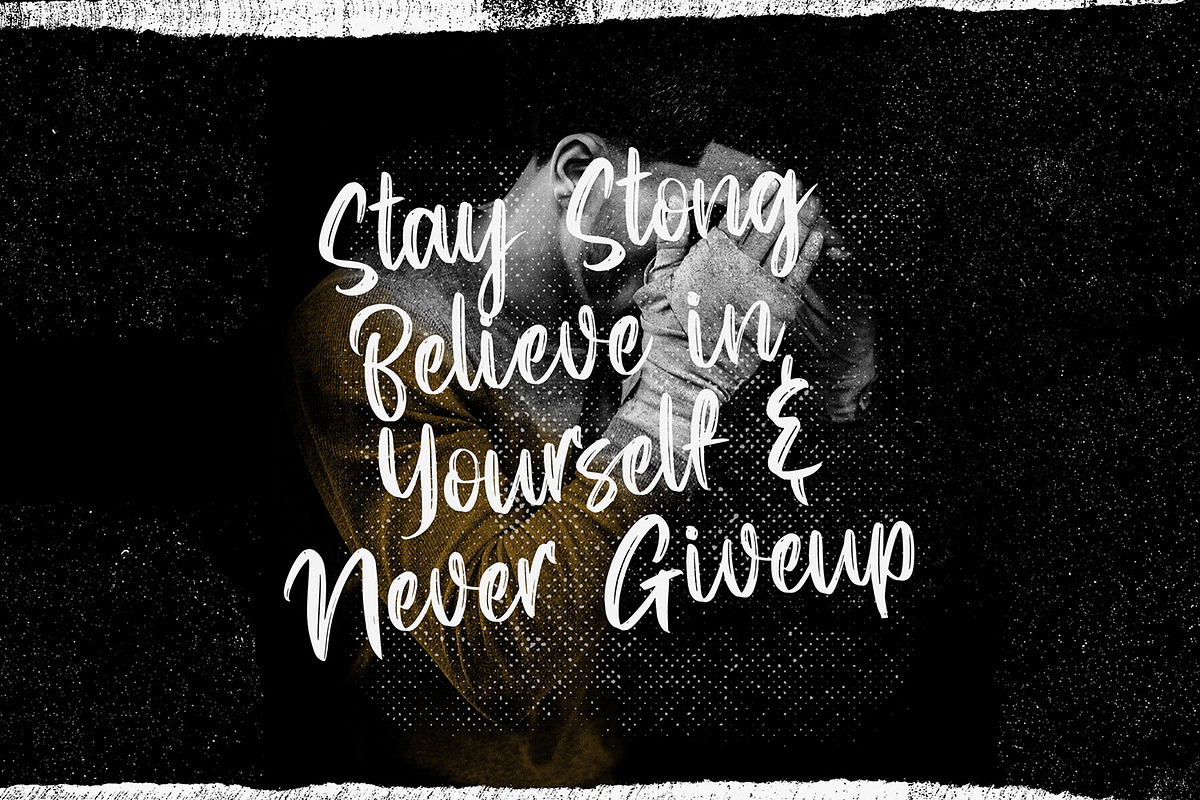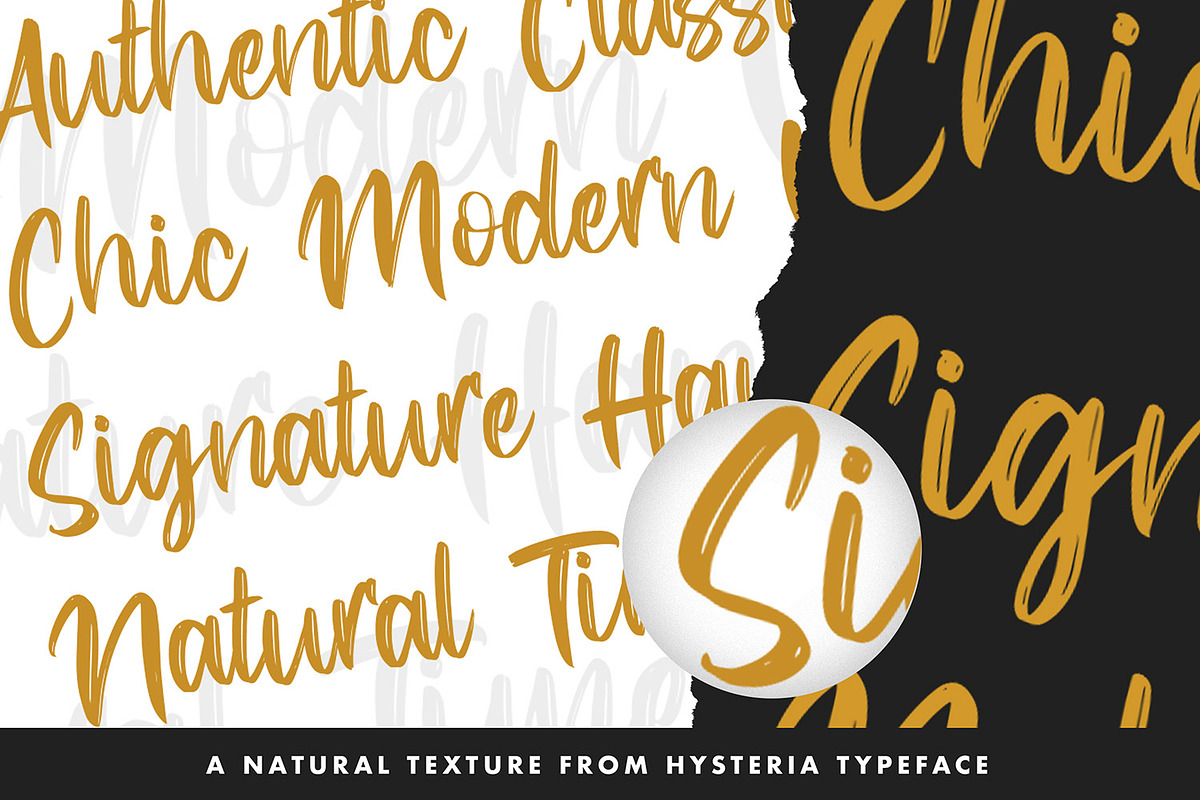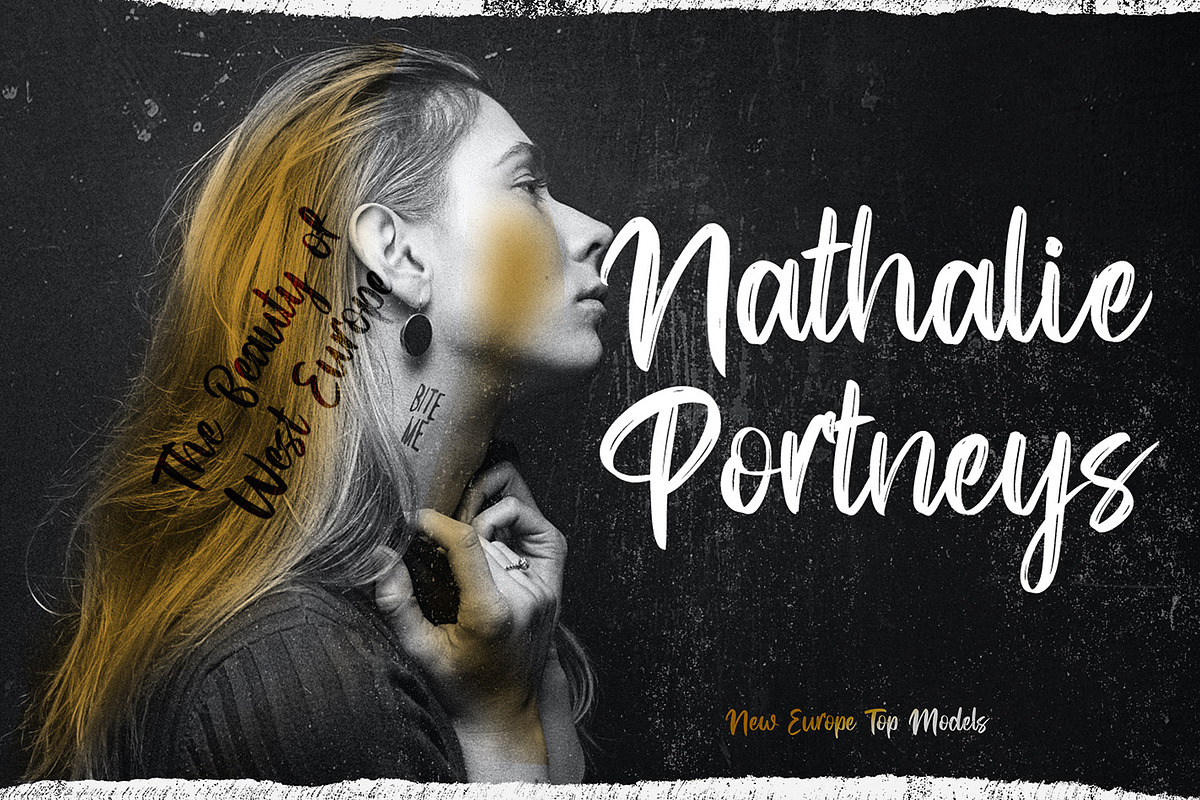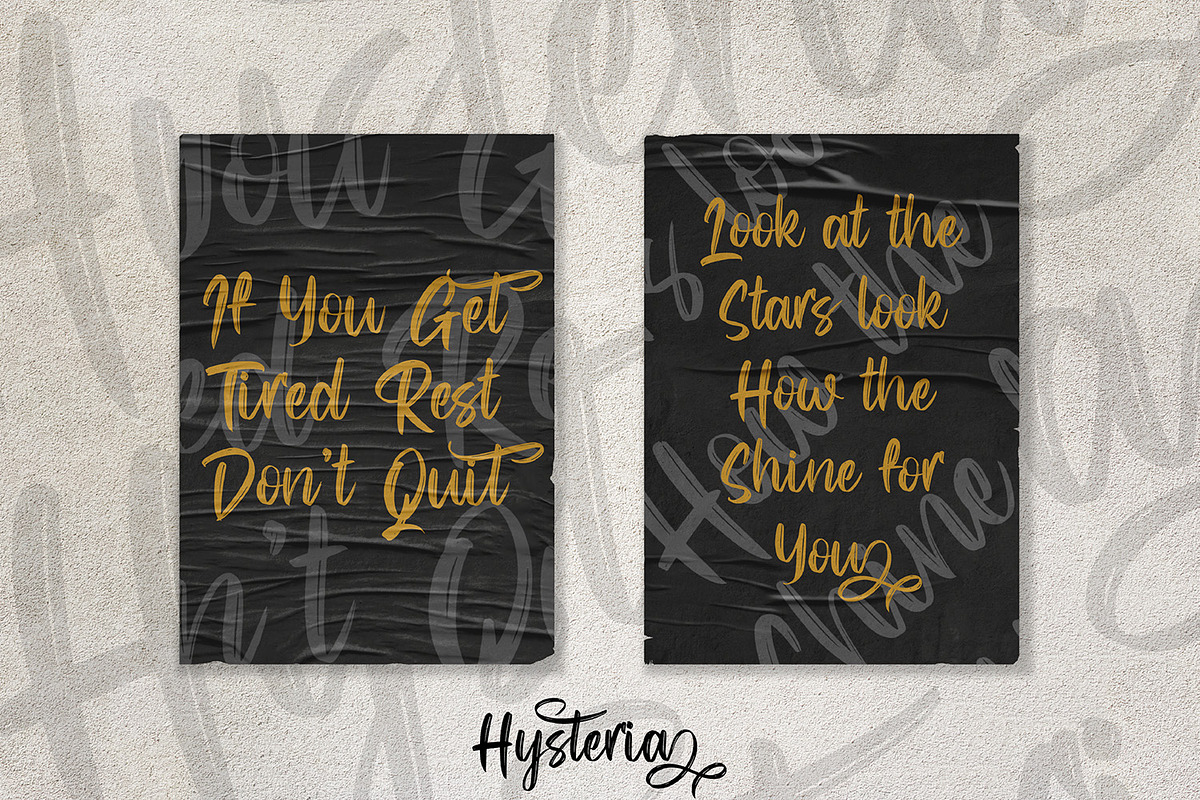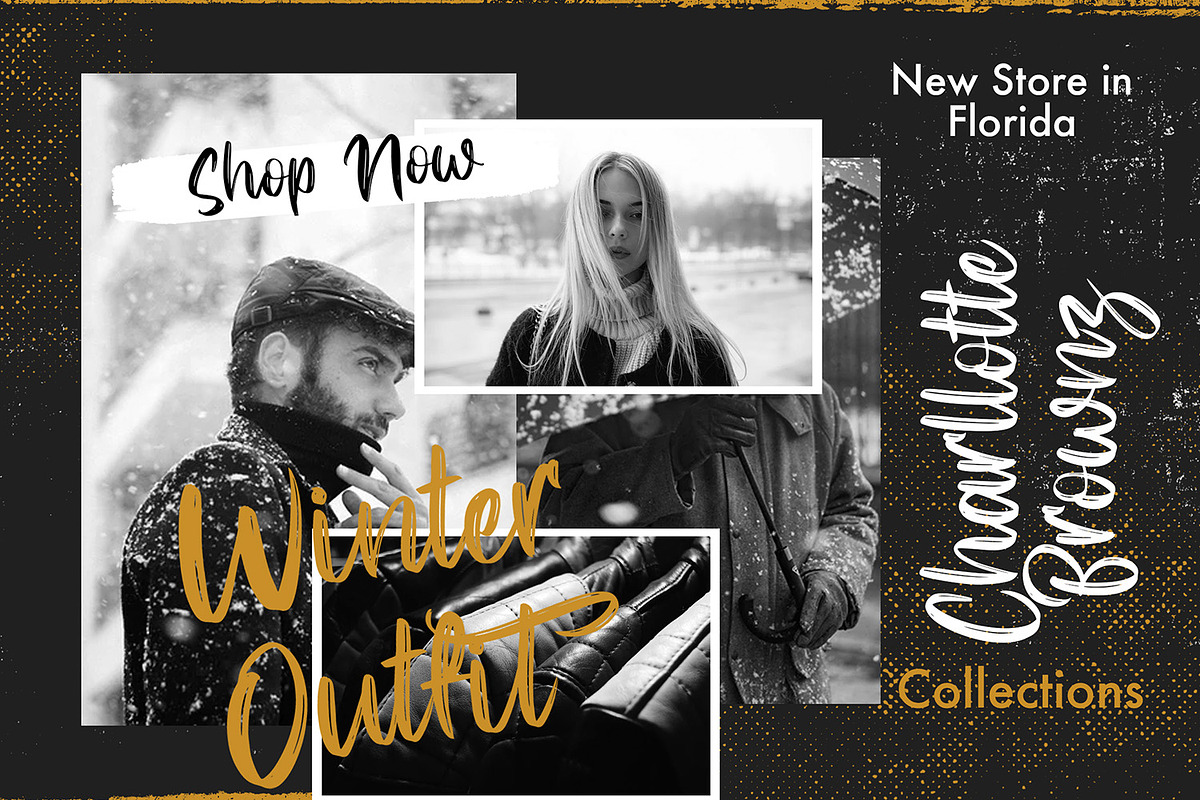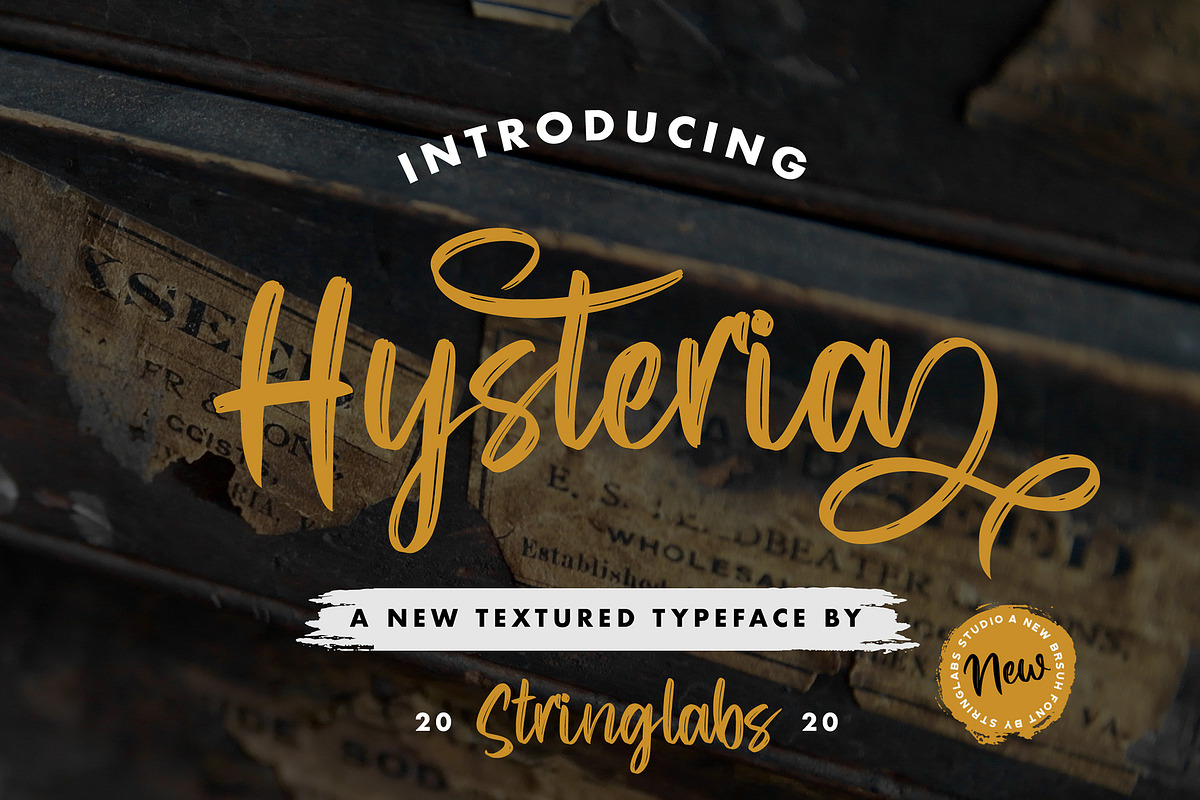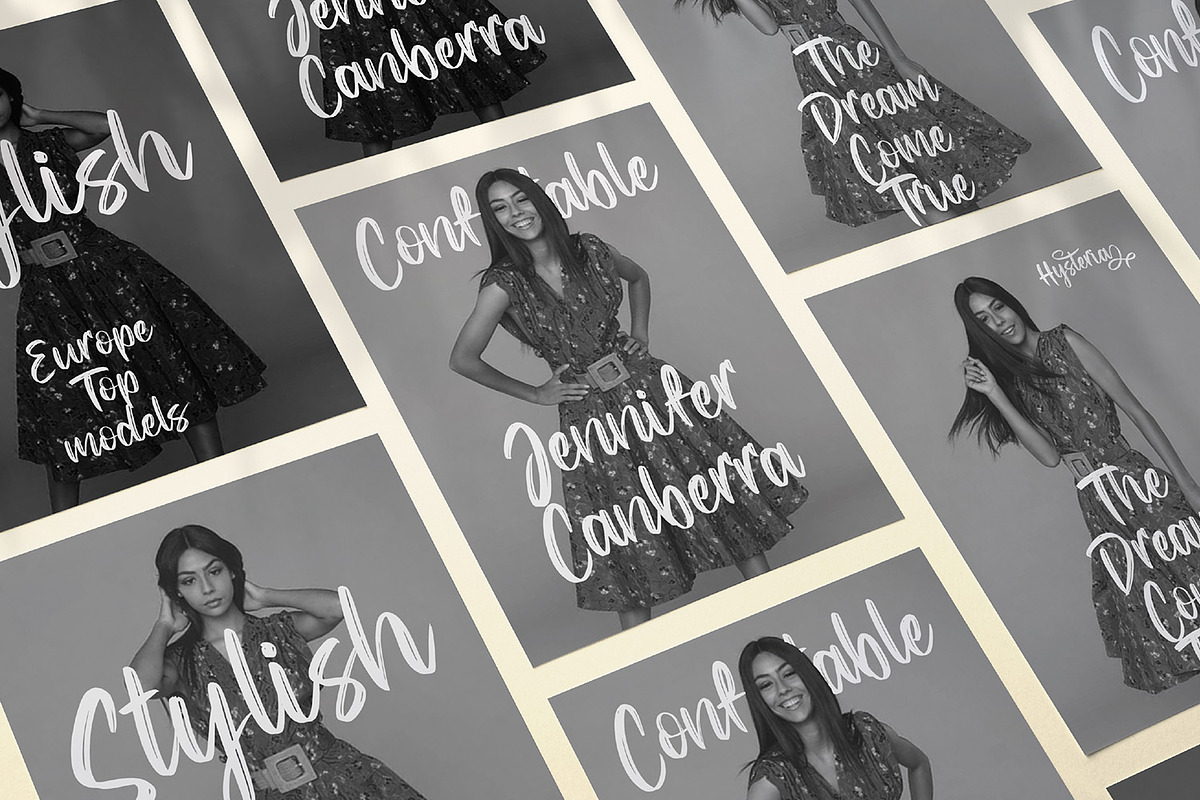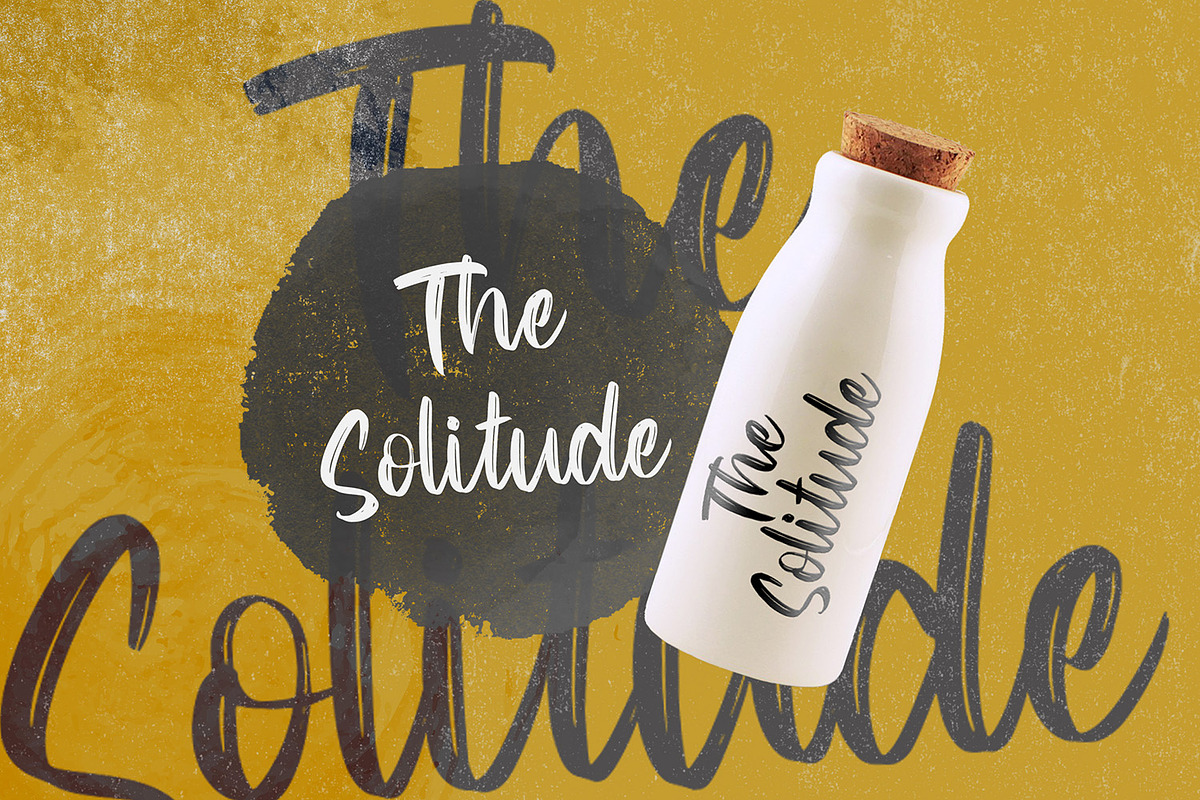
Hysteria - Stylish Script Font
Introducing Hysteria - Stylish Script Font
Hysteria is a Script Font with Stylish Textured Brush Style. The Hysteria font made with digital brush pen strokes that making this font look authentic. This font is perfect for fashion brand, wedding invitation, business card, logo brand, signature, and then calligraphy.
- This Font contains Classy, Elegant, Creative, Cool and has a Unique Concept.